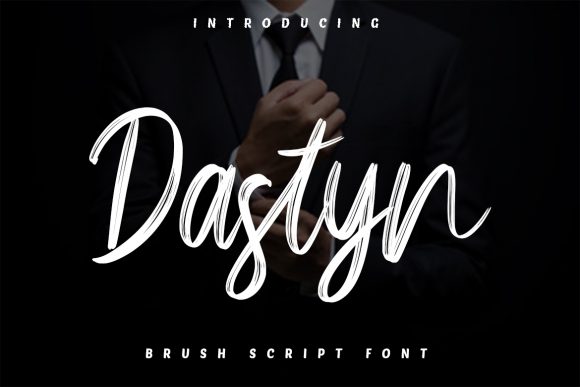
Feast your eyes on Dastyn Font, a striking and effortlessly elegant brushed handwritten font that will ignite your creative spark. Crafted by the talented team at Skiiller Studio, Dastyn's graceful strokes and delicate swashes evoke a sense of charm and sophistication that will elevate any design project you embark on.
Immerse yourself in a world of captivating visual possibilities with Dastyn. Its unique character dances across your screen, weaving stories with every letter. Whether you're crafting heartfelt wedding invitations, adding a touch of whimsy to personal branding projects, or creating eye-catching display boards, Dastyn will effortlessly elevate your designs to new heights.
Experience the allure of Dastyn's script family, a versatile collection of fonts that cater to a myriad of creative ventures. Whether you're a seasoned graphic designer or just starting your artistic journey, Dastyn's user-friendly nature will guide you through your creative endeavors seamlessly. Let your imagination soar as you explore the limitless possibilities that Dastyn holds.
Indulge in the beauty of Dastyn's meticulously crafted letters, each stroke imbued with artistry and precision. Discover the magic that unfolds as you pair Dastyn with other elements of your design, creating striking contrasts and harmonious blends that leave a lasting impression.
With Dastyn by your side, mundane creations transform into captivating works of art. Dive into the depths of your imagination and let your creativity flourish as you craft designs that resonate with your audience and leave them spellbound.